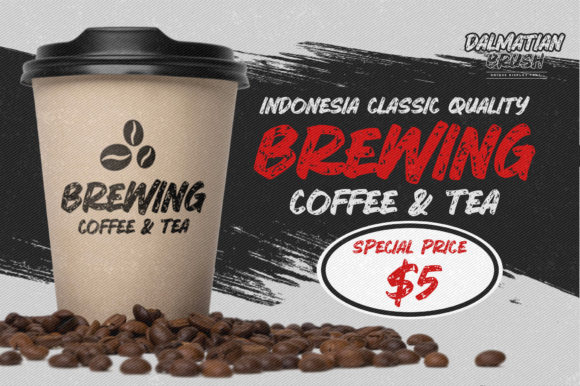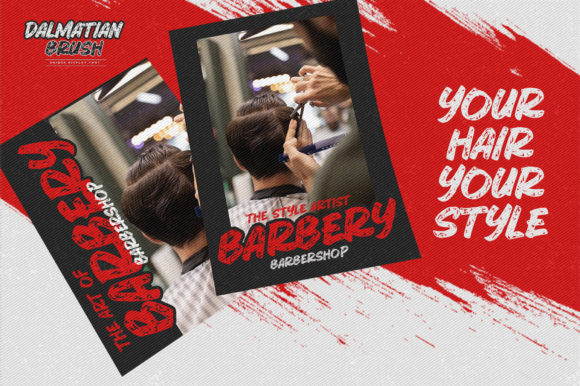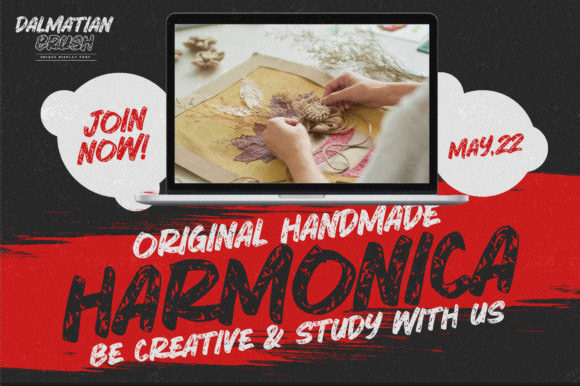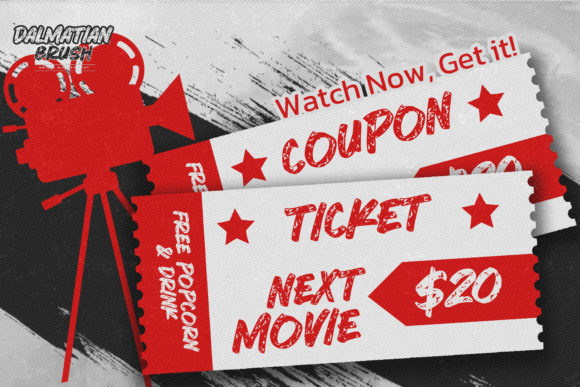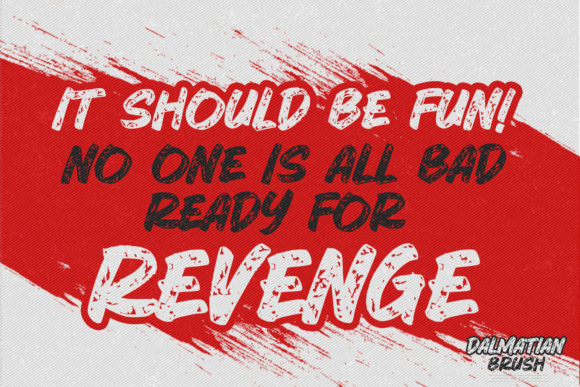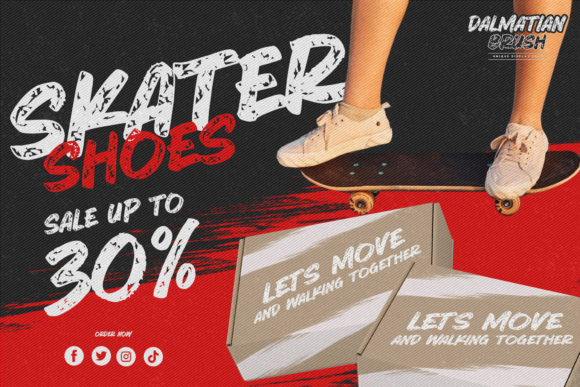
Introducing Dalmatian Brush Font: A Unique Display Font for Creative Projects
We are excited to introduce our new font, Dalmatian Brush, a unique display font that is written casually and quickly, giving it an authentic brush and classy style. This handmade font is crafted with brushes on Procreate and then carefully drawn into vector format, making it perfect for a variety of creative projects.
What Makes Dalmatian Brush Font Special?
Dalmatian Brush Font is a one-of-a-kind font that offers a natural handwritten feel, making it ideal for designers and crafters looking to add a personal touch to their work. The font is handmade with brushes on Procreate, which gives it a unique and authentic look. The brush strokes are carefully crafted to create a sense of movement and fluidity, making it perfect for projects that require a creative and artistic approach.
Use Cases for Dalmatian Brush Font
Dalmatian Brush Font is a versatile font that can be used for a variety of creative projects, including:
- Watermark on photography: Add a personal touch to your photos with a beautiful, handwritten watermark.
- Logos & branding: Create a unique and memorable logo for your brand with a natural, handwritten feel.
- Photography: Use Dalmatian Brush Font to add captions or quotes to your photos.
- Invitation: Create beautiful and elegant invitations for special events, such as weddings or parties.
- Advertisements: Add a creative and artistic touch to your ads with a handwritten font.
- Product designs: Use Dalmatian Brush Font to create unique and eye-catching product designs.
- Stationery: Add a personal touch to your stationery, such as notecards or journals.
- Wedding designs: Create beautiful and elegant wedding designs, such as wedding invitations or ceremony programs.
- Label: Use Dalmatian Brush Font to create unique and eye-catching labels for products or packaging.
- Product packaging: Add a creative and artistic touch to your product packaging.
Features of Dalmatian Brush Font
Dalmatian Brush Font comes with a range of features that make it easy to use and versatile. These include:
- Standard glyphs: Includes a range of standard glyphs, such as letters, numbers, and punctuation marks.
Why Choose Dalmatian Brush Font?
Dalmatian Brush Font is a great choice for designers and crafters looking for a unique and creative font that offers a natural handwritten feel. The font is perfect for projects that require a personal touch, such as invitations, logos, and product designs. With its authentic brush and classy style, Dalmatian Brush Font is sure to add a touch of elegance and sophistication to any design project.
In conclusion, Dalmatian Brush Font is a unique and versatile font that offers a natural handwritten feel and a range of creative possibilities. With its authentic brush and classy style, it is perfect for designers and crafters looking to add a personal touch to their work. Whether you’re creating a logo, invitation, or product design, Dalmatian Brush Font is a great choice for any design project.